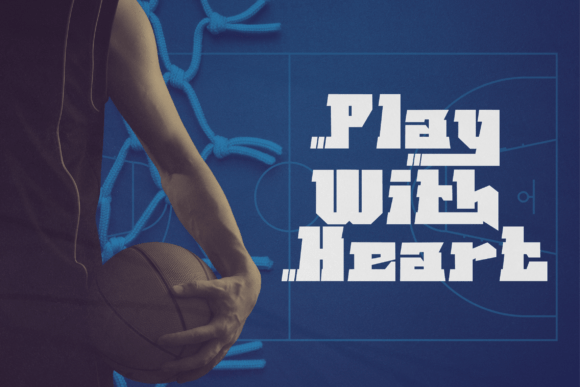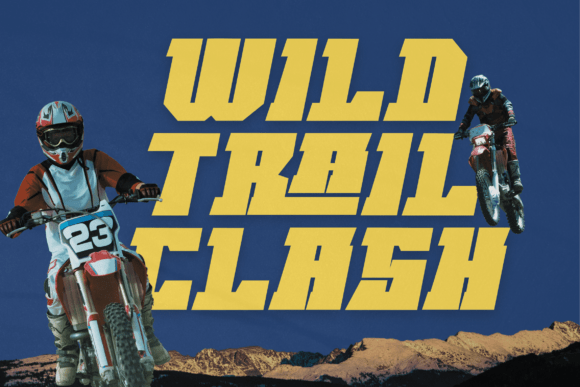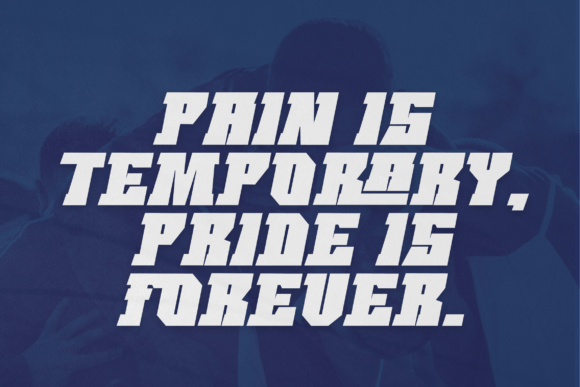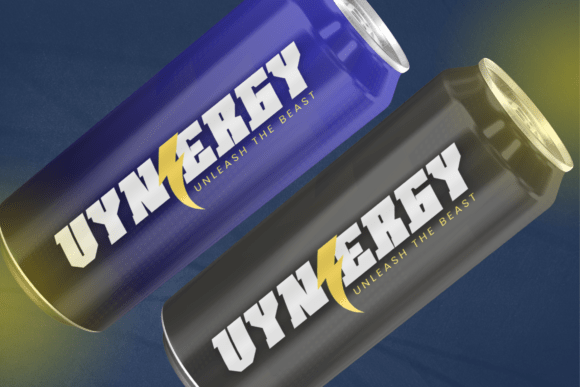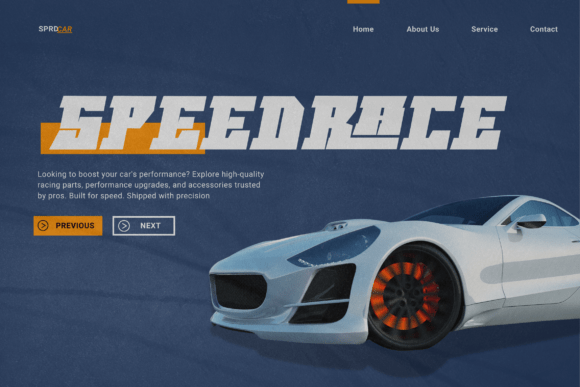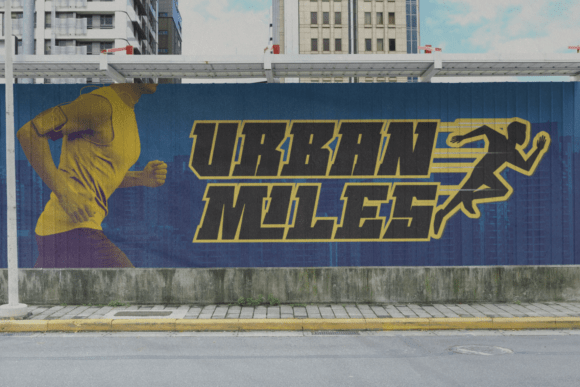
Bhiform Font: Unleash the Adrenaline of Motorsports in Your Designs
Are you looking for a font that embodies the high-octane world of motorsports? Do you want to inject your designs with the adrenaline-fueled ethos of racing? Look no further than Bhiform, a sport-inspired font that thrives in the fast lane. In this article, we’ll explore the features and benefits of Bhiform, and how it can elevate your designs for race event promotions, automotive identity creations, athletic wear, and action-driven headlines.
The Anatomy of Bhiform
Bhiform’s anatomy is crafted with bold strokes, sharp corners, and potent lines, giving it a vigorous stance that amplifies energy through your typography. The font’s bold and condensed structure makes it perfect for creating eye-catching headlines and titles that demand attention. The sharp corners and lines evoke the speed and agility of motorsports, while the bold strokes provide a sense of power and strength.
Perfect for Racing-Themed Designs
Bhiform is the go-to choice for designers and crafters who want to create racing-themed designs that cross the finishing line in unparalleled style and impact. Whether you’re designing raceway memorabilia, thrilling video games, or custom vehicle decals, Bhiform is the perfect font to elevate your design. The font’s high-octane aesthetic makes it ideal for promoting racing events, creating automotive identities, and designing athletic wear.
Key Features of Bhiform
- Bold and condensed structure: Bhiform’s bold and condensed structure makes it perfect for creating eye-catching headlines and titles.
- Sharp corners and lines: The font’s sharp corners and lines evoke the speed and agility of motorsports.
- Potent lines: Bhiform’s potent lines provide a sense of power and strength, making it perfect for designs that require a bold statement.
- Vigorous stance: The font’s vigorous stance amplifies energy through your typography, making it perfect for action-driven designs.
Use Cases for Bhiform
Bhiform is a versatile font that can be used in a variety of design projects, including:
- Race event promotions: Use Bhiform to create eye-catching posters, flyers, and social media graphics for racing events.
- Automotive identity creations: Bhiform is perfect for creating bold and striking automotive identities, such as logos and branding materials.
- Athletic wear: The font’s high-octane aesthetic makes it ideal for designing athletic wear, such as t-shirts, hats, and jerseys.
- Action-driven headlines: Bhiform is perfect for creating bold and attention-grabbing headlines for action-driven designs, such as video games and sports websites.
- Raceway memorabilia: Use Bhiform to create unique and striking designs for raceway memorabilia, such as t-shirts, posters, and stickers.
- Thrilling video games: Bhiform is perfect for creating bold and striking titles and graphics for video games.
- Custom vehicle decals: The font’s bold and condensed structure makes it ideal for creating custom vehicle decals that demand attention.
In conclusion, Bhiform is a sport-inspired font that embodies the high-octane world of motorsports. Its bold and condensed structure, sharp corners, and potent lines make it perfect for creating eye-catching designs that demand attention. Whether you’re designing race event promotions, automotive identities, athletic wear, or action-driven headlines, Bhiform is the go-to choice for designers and crafters who want to create racing-themed designs that cross the finishing line in unparalleled style and impact.